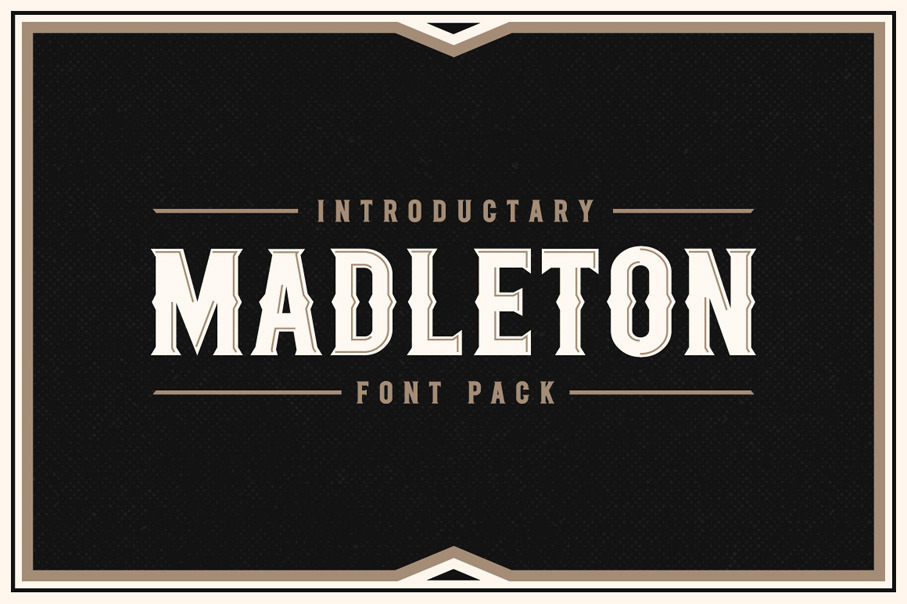
Madleton Font Pack
Madleton font pack is the first condensed font from Rich Graphic Supply Co. It's inspired by alcoholic beverage labels, which give the impression of spirit and timeless design. There are 4 fonts inside Zip. file, include the image preview.
Everyone who looking for a typeface for liquor design or beverage theme, Madleton font pack is the recommended one for your work.